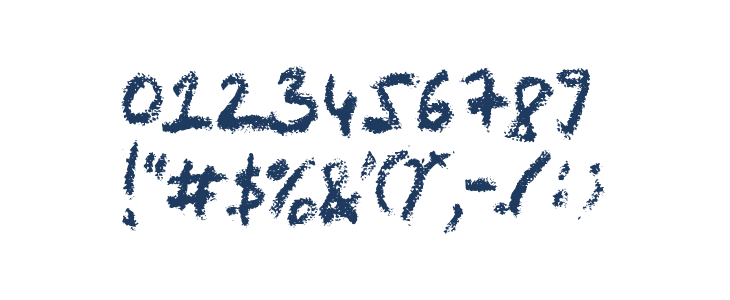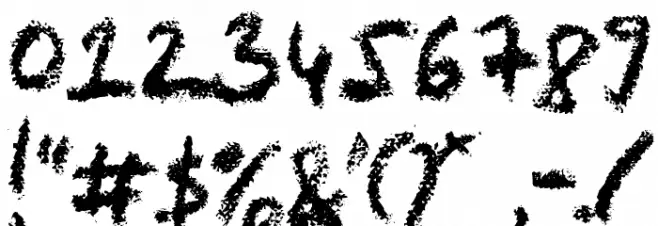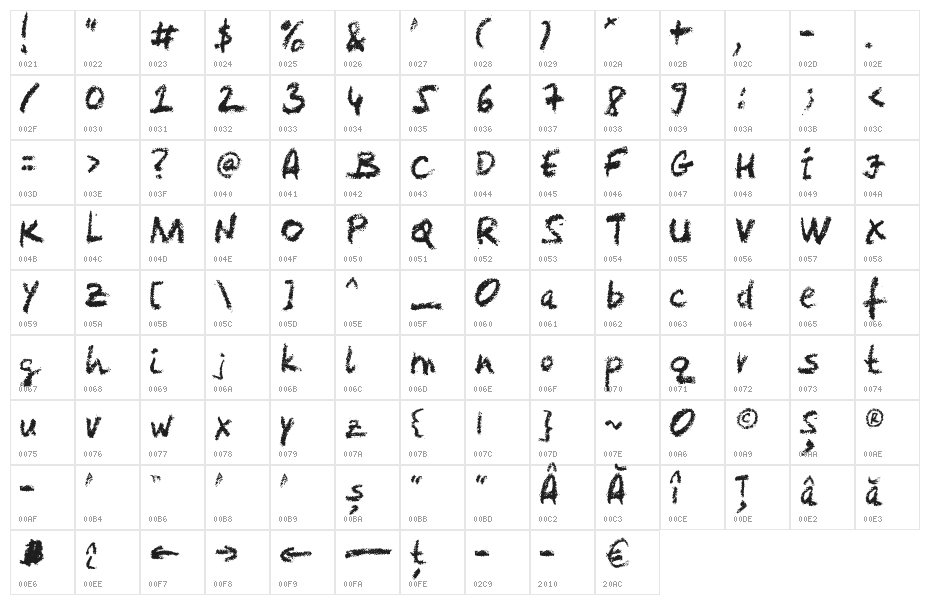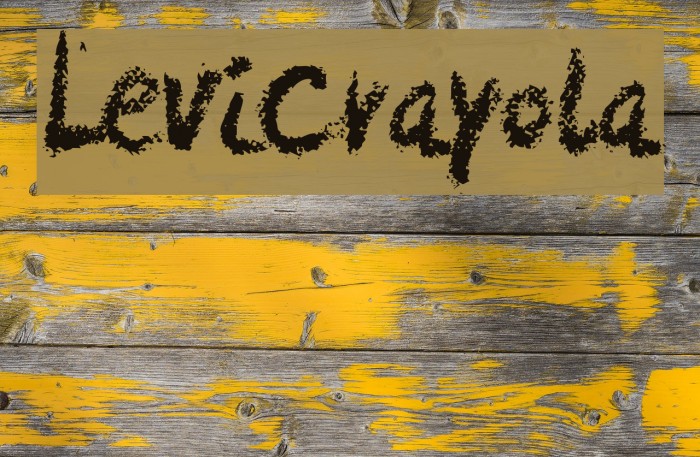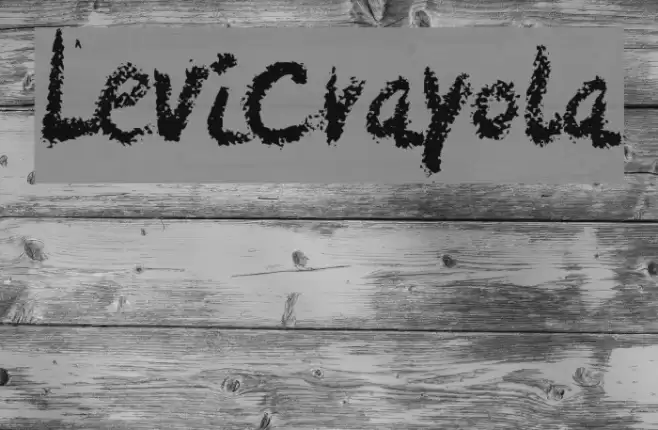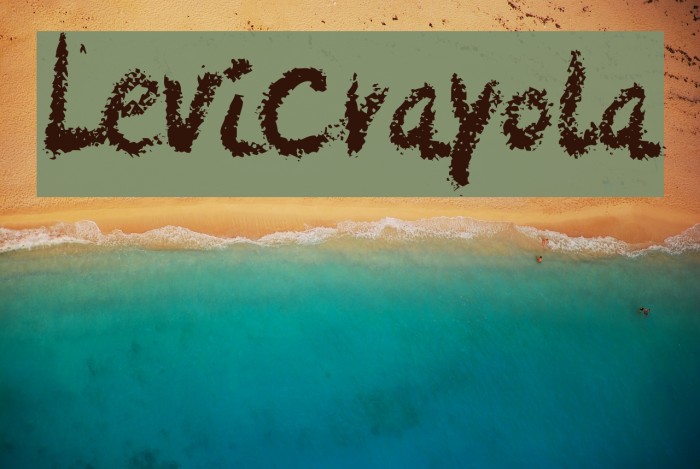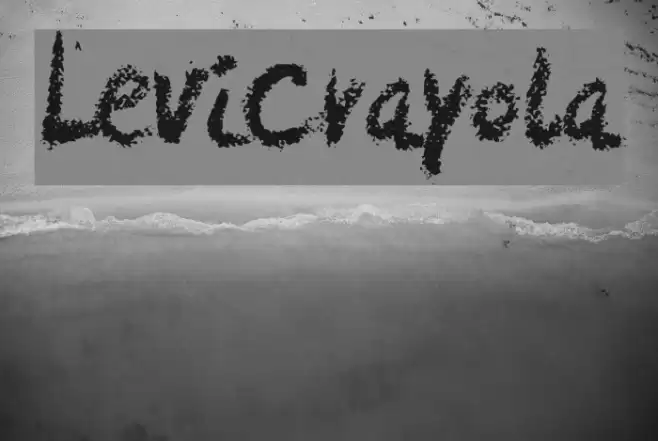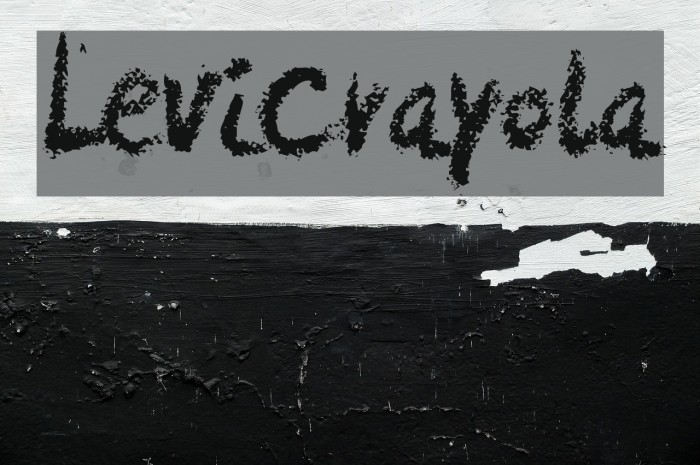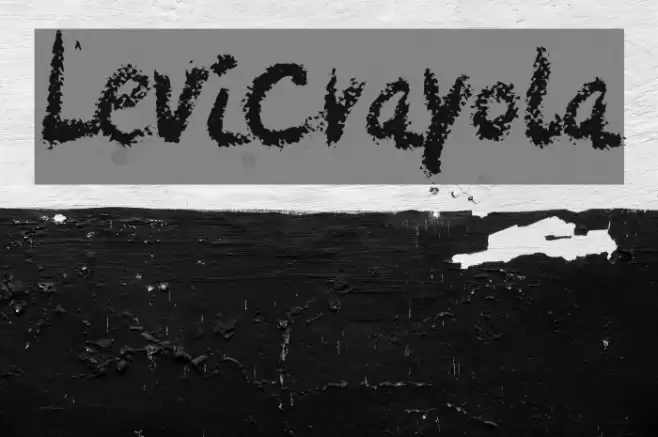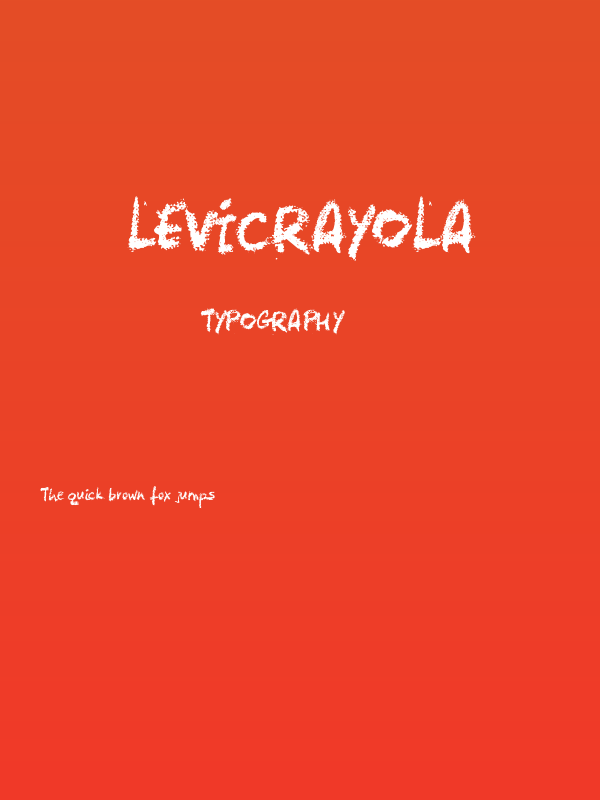
LeviCrayola Font
LeviCrayola Description
This font exhibits a playful and textured style, reminiscent of crayon or chalk drawings. The letters have a rough, uneven texture that gives them a hand-drawn appearance, adding a sense of creativity and spontaneity. The uppercase and lowercase letters maintain a consistent style, with slightly exaggerated curves and angles that enhance the whimsical feel. Numbers and special characters follow the same design, ensuring a cohesive look across all elements. The font's unique texture makes it stand out, ideal for projects that require a touch of artistic flair.
| Overall Style | Playful, Artistic |
| Proposed Projects | Ideal for children's book covers, playful branding, educational materials, and creative posters. |